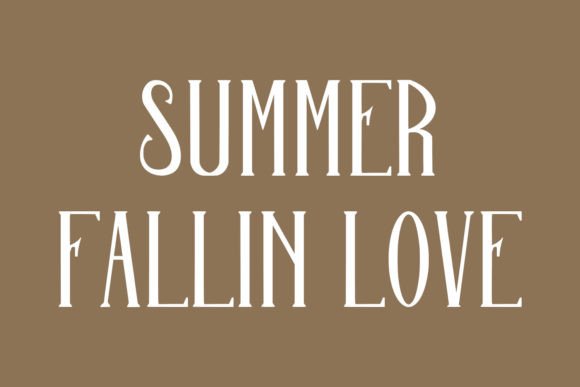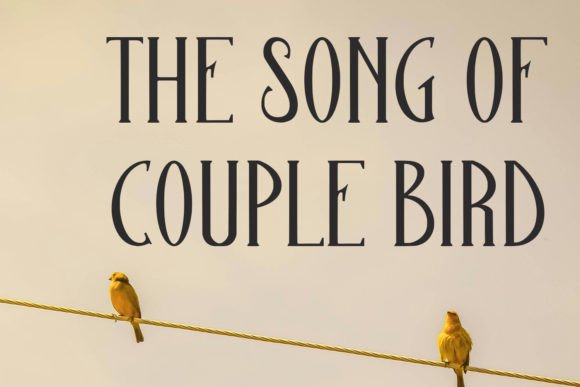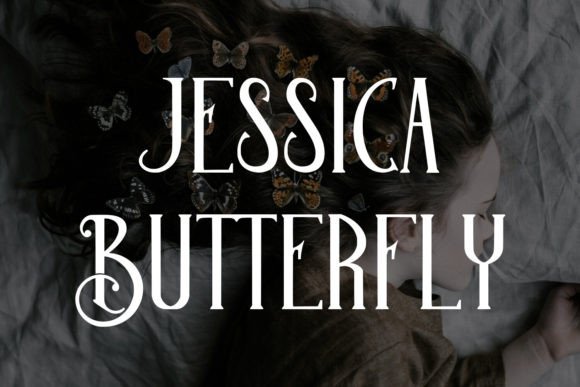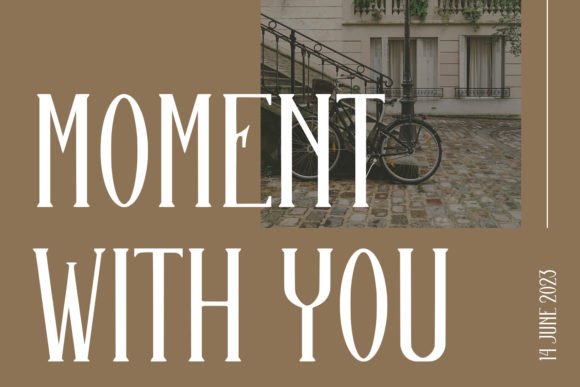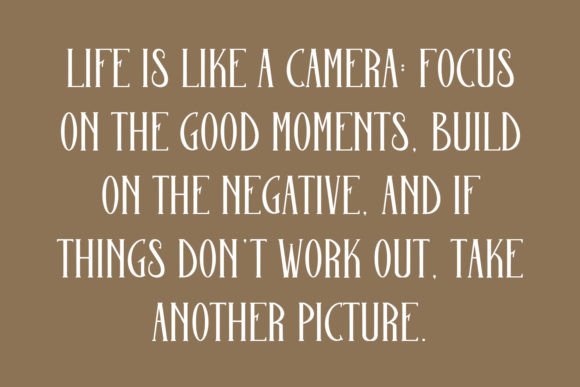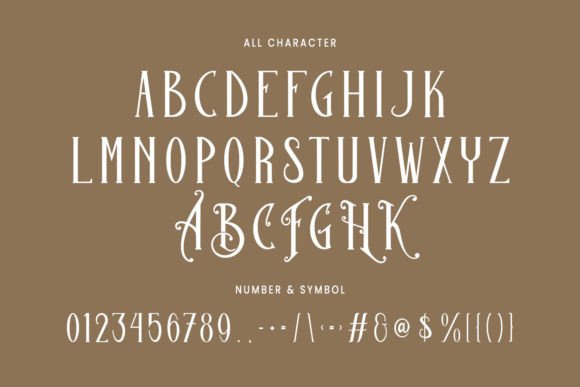
Introduction to Killae Font
Have you ever found yourself pouring over a blank canvas, desperate to bring your creative vision to life? That’s exactly where I was when I stumbled upon the enchanting Killae Font. Its elegant serif strokes and sophisticated details had me hooked, and I knew I had to share it with fellow designers.
As a valuable design resource, the Killae Font offers a level of sophistication and style that’s hard to find. With its high-quality details and transparent background, it’s perfect for adding a touch of classic beauty to any creative project. Whether you’re working on an invitation, branding, or any other design, this font is sure to elevate your work. And the best part? You can download it for free, making it an accessible and must-have addition to any designer’s toolkit.
Key Features of Killae Font
- High-quality design resource perfect for creative projects, offering a unique aesthetic.
- Features a transparent background, allowing for seamless integration with any design.
- Includes a range of characters, including uppercase and lowercase letters, numbers, and special symbols.
- Designed with a modern and edgy feel, making it ideal for trendy and artistic projects.
- Perfect for designers, artists, and creatives looking for a bold and eye-catching font for their next project.
Honest Review: Killae Font
One of the things that stood out to me was the font’s versatility. It’s perfect for a creative project that needs a bold, modern look. I used it for a logo design and was impressed with how well it held up. The transparent background also made it easy to work with.
Here are some of the features that I liked:
- ✨ Unique and modern design style
- ✨ Highly customizable
- ⚠️ Limited character set (although this may not be a major issue for most users)
Overall, I’m impressed with the Killae Font and would definitely recommend it as a design resource. With its high quality and versatility, it’s a great addition to any designer’s toolkit.
Tips for Getting the Most Out of Killae Font
For the best results, use Killae Font in conjunction with a high-quality image or design. You can also experiment with different font sizes and styles to create a unique and eye-catching design.